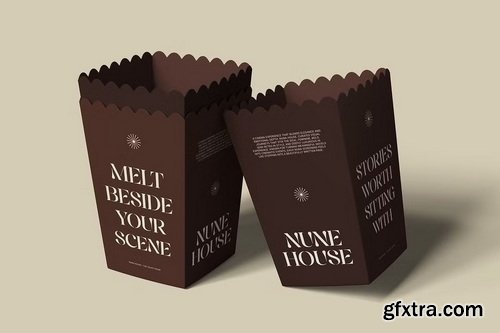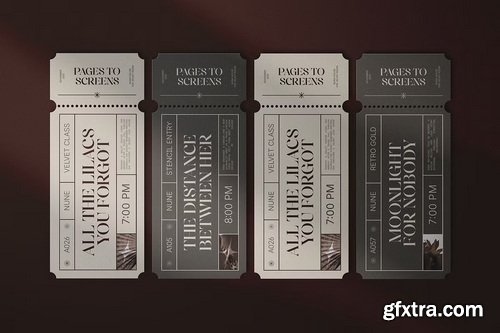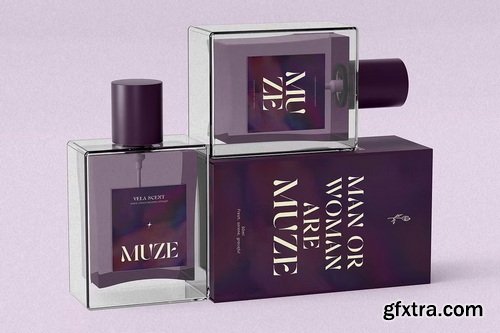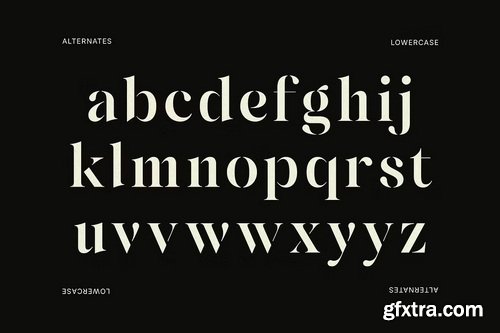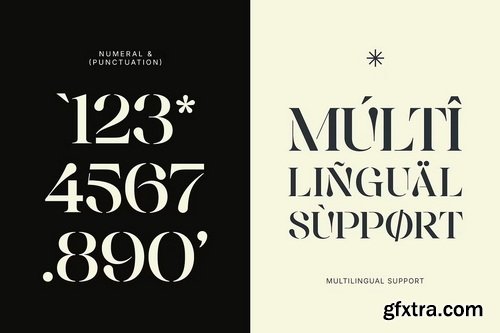
- Fanquise is a captivating luxury stencil serif font, meticulously designed to add an unparalleled touch of elegance and stylish to your creative projects. Its distinguishing feature lies in the unique, stylish cut-out details within its serifs, giving it a modern and artistic appeal that effortlessly stands out. Ideal for high-end branding, exclusive fashion editorials, luxury product packaging, logo design, poster, advertising campaign, refined magazine layouts, glamorous event invitations and any project, Fanquise embodies a sense of refined artistry and unexpected style. This versatile typeface offers a broad range of alternate characters for both uppercase and lowercase letters with comprehensive numeral and punctuation support, alongside extensive multilingual capabilities, providing immense creative freedom to impactful designs and ensures your message resonates globally with timeless charm.